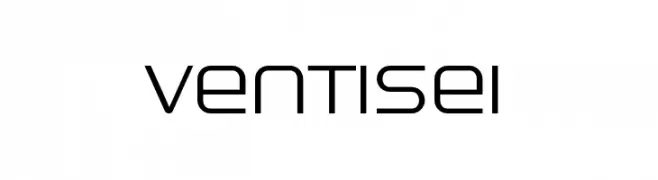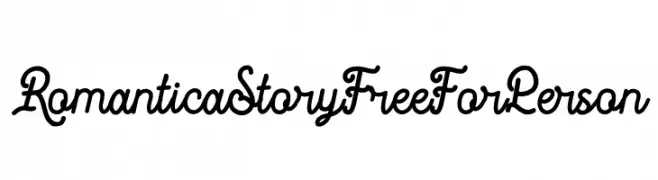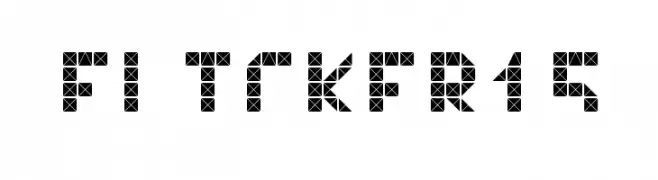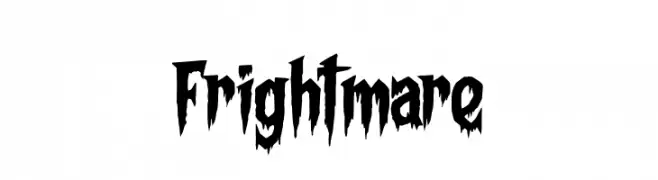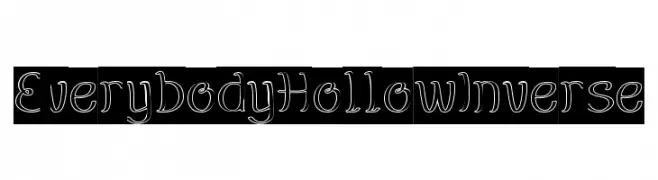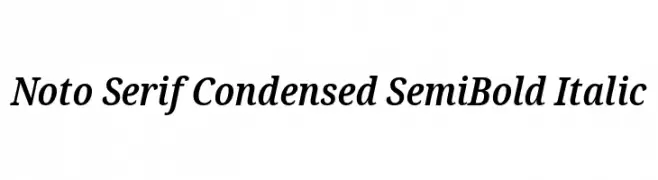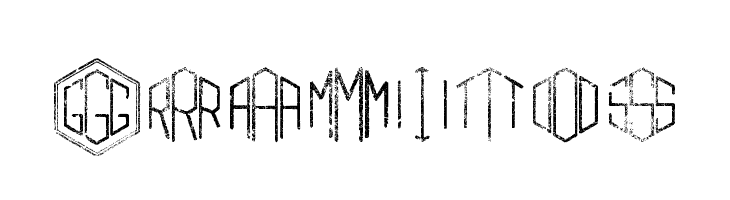
A bold, italicized font with sharp, angular edges and a futuristic look.
A modern, geometric font with clean lines and rounded edges.
A playful and whimsical script font with elegant curves and decorative flourishes.
A bold, geometric font with a mosaic pattern, ideal for decorative use.
A bold, decorative font with a snowflake pattern, perfect for festive themes.
A dripping, horror-themed font with a liquid-like appearance.
A jagged, horror-themed font with sharp, irregular edges.
A bold, textured font with a distressed, vintage appearance.
A playful, hollow, outlined font with consistent stroke width and whimsical design.
A refined, condensed serif font with a semi-bold italic style.